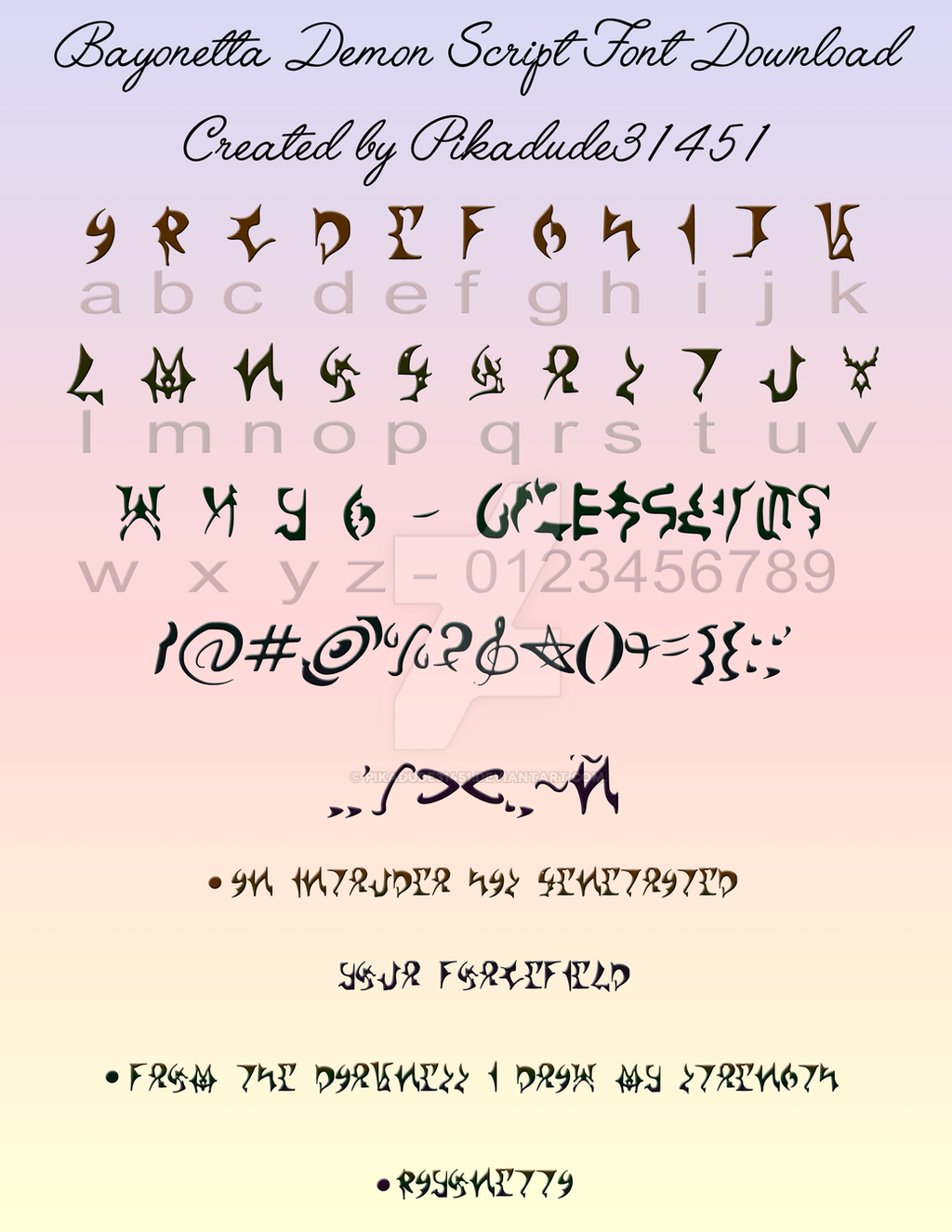
Okay so I made a "Type-able" font for the Demon Script from the Bayonetta Games. Mainly because I wanted to make the textures of the model I'm making more accurate. Sure, it's not the MOST accurate, but I tried. Any Characters i could not find reference for I tried to re-create something that has a similar style.Download it here - it's just the .TTF file: You just have to copy and paste into the fonts section of your control panel